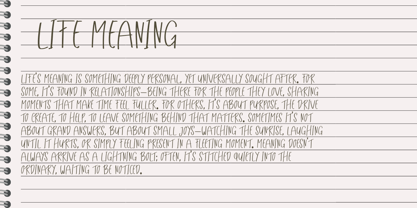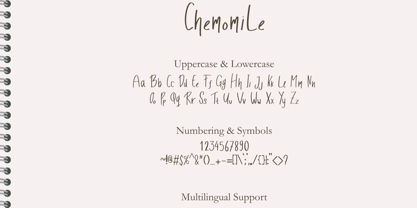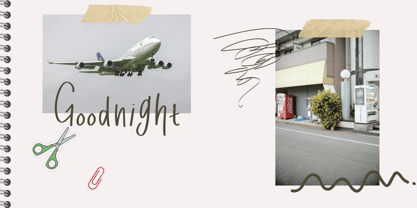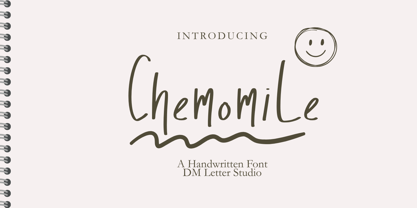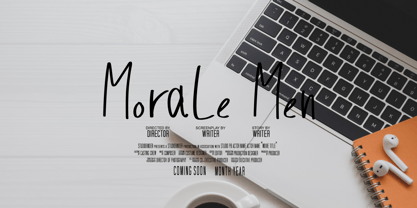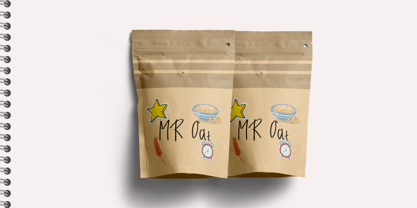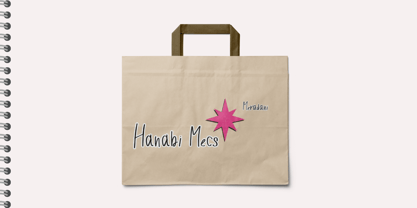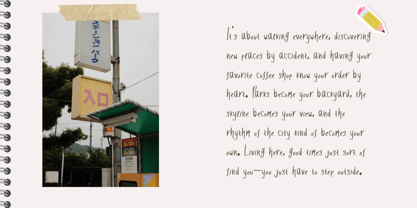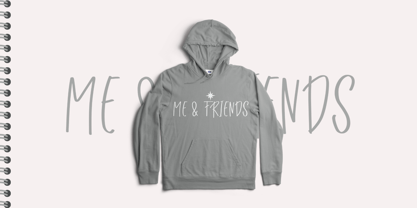
Chemomile
by DM Studio
The Chemomile Font Family was designed by Dimas Prasetyo and published by DM Studio. Chemomile contains 1 styles. More about this family
Say hello to Chemomile, a charming handwritten font inspired by the calming beauty of chamomile flowers. With soft strokes and gentle curves, this font brings a relaxed, personal touch to your design projects. Whether you're creating invitations, quotes, logos, packaging, or social media graphics, Chemomile adds a warm and welcoming vibe.
Designed to look like natural handwriting, Chemomile is perfect for anyone looking to elevate their brand or artwork with an authentic, organic style.
• Uppercase & lowercase letters
• Numbers & punctuation
• Multilingual support
• Smooth, clean letterforms for easy readability
Designers: Dimas Prasetyo
Foundry: DM Studio